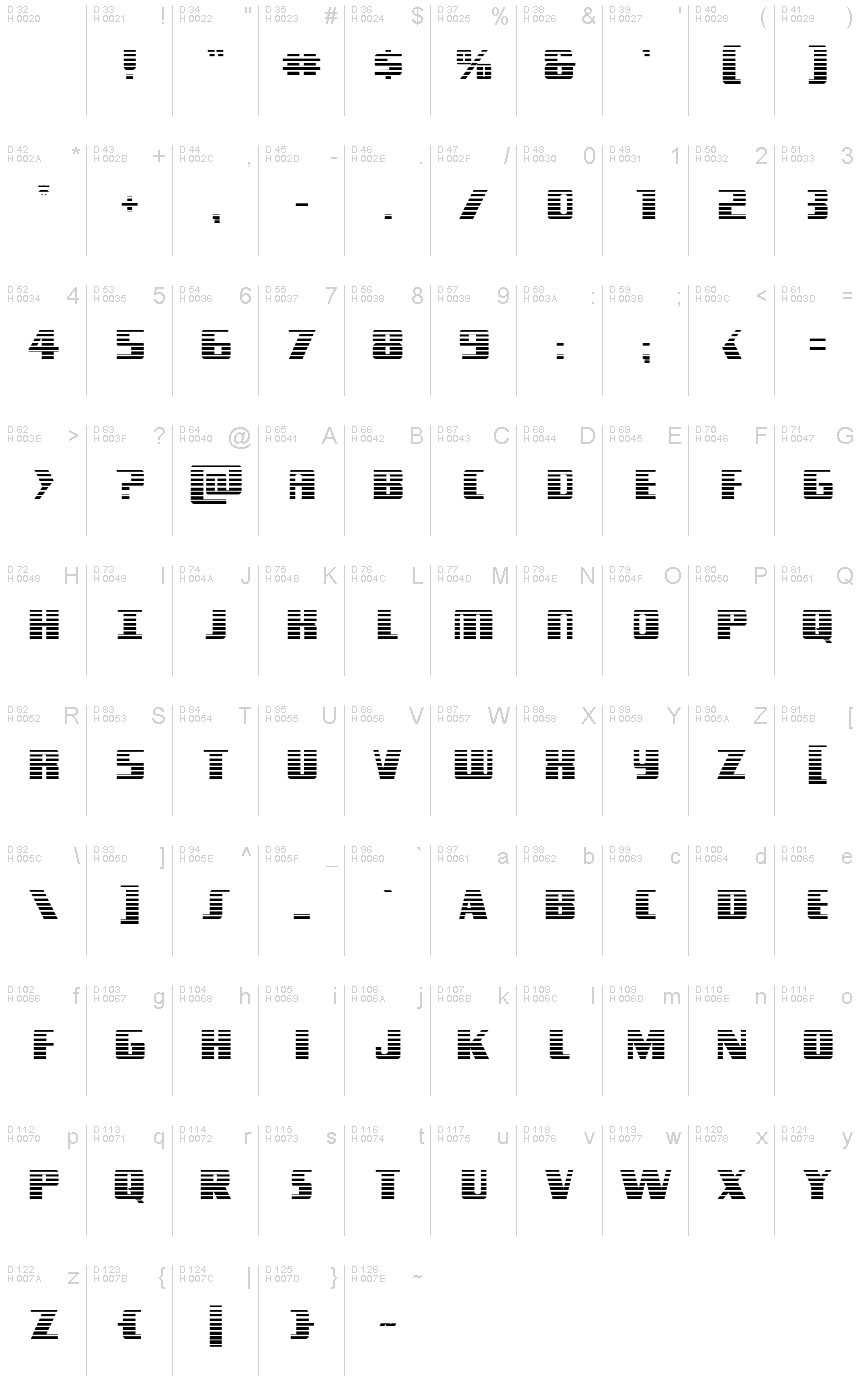
Typhoon Gradient
Typhoon Gradient is a striking member of the Typhoon font family, masterfully designed by Iconian Fonts. This sans serif typeface boasts an impressive bold weight and an expanded width, making it unmistakably prominent and visually commanding. The gradient-like pattern within each letter adds a dynamic, futuristic feel that sets it apart from conventional fonts.
Ideal for eye-catching headers, dynamic posters, or any design work requiring a unique flair, Typhoon Gradient is perfect for projects aiming to stand out. Its robust and expansive nature demands attention while still maintaining legibility and modern aesthetics. Whether you're crafting digital art or designing impactful advertisements, this font will infuse your creations with innovative energy and bold character.